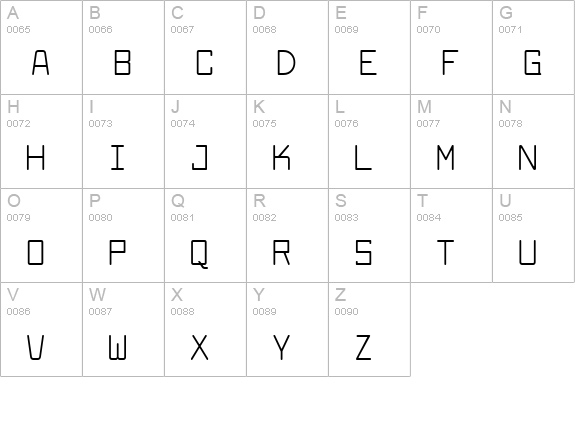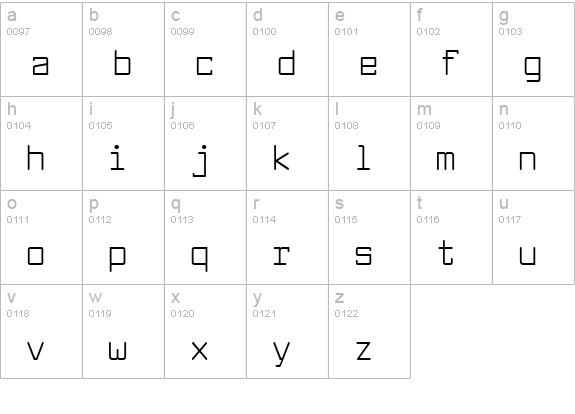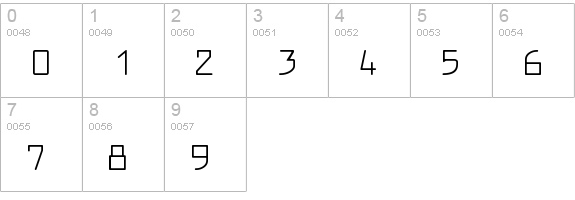
Larabiefont Font Details
Larabiefont is a versatile and visually appealing font that is perfect for various design projects. With its elegant and modern design, it captures the attention of readers and adds a touch of sophistication to any text. Whether you are creating a logo, designing a website, or working on a print project, Larabiefont will surely stand out and leave a lasting impression. One of the best things about Larabiefont is that it is completely free. Yes, you heard it right! This amazing font is freely available to download at FontsMarket.com. You no longer have to worry about breaking your budget or searching for the perfect font that fits your needs. Larabiefont offers you the opportunity to enhance your designs without any cost. Designed with utmost precision and attention to detail, Larabiefont boasts a wide range of characters, from uppercase letters to lowercase letters, numbers, and special characters. This extensive character set ensures that you have all the tools you need to create stunning typography. Not only is Larabiefont visually stunning, but it is also incredibly easy to use. It is compatible with various design software, making it accessible to designers of all levels. Whether you are a beginner or a seasoned professional, you will find Larabiefont a breeze to work with. So why wait? Download Larabiefont from FontsMarket.com today and unlock a world of design possibilities. With its free availability and exceptional design, Larabiefont is the perfect choice for anyone looking to elevate their design projects to the next level. Get ready to impress your audience and make a lasting impact with Larabiefont.